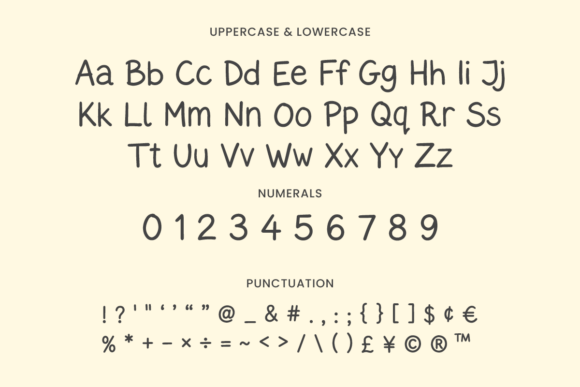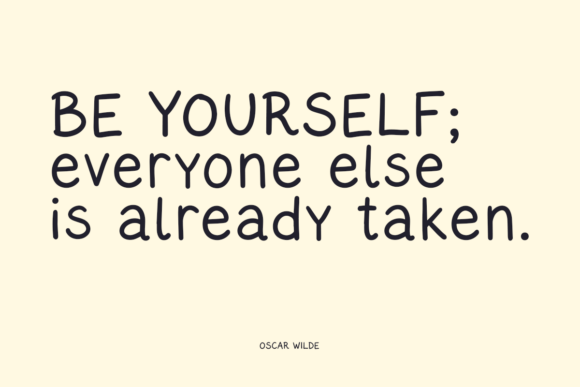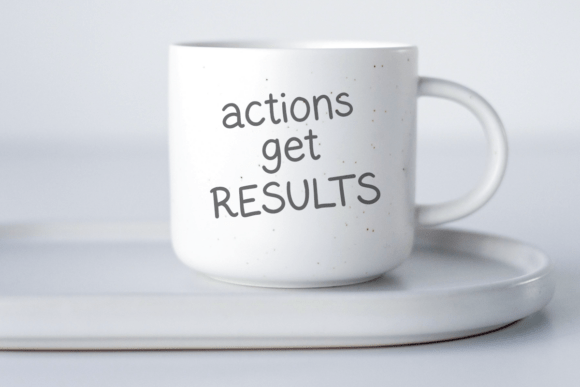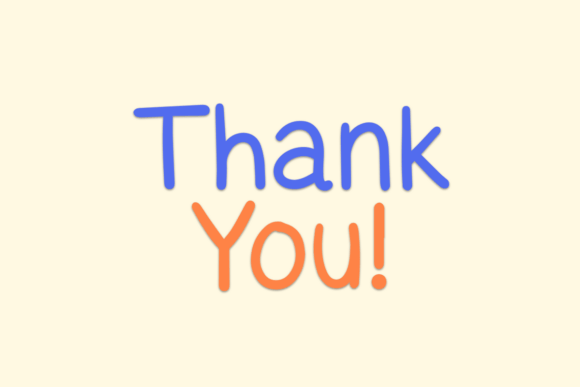
Introduction to Magic Aspect Font
Magic Aspect is a charming handwritten font that captures the feeling of effortless creativity and personal expression.
With its natural strokes and slightly whimsical curves, it brings warmth and authenticity to any design Perfect for invitations, journals, branding, and social media graphics, Magic Aspect typeface adds a magical, human touch that feels both playful and elegant.
Key Features of Magic Aspect Font